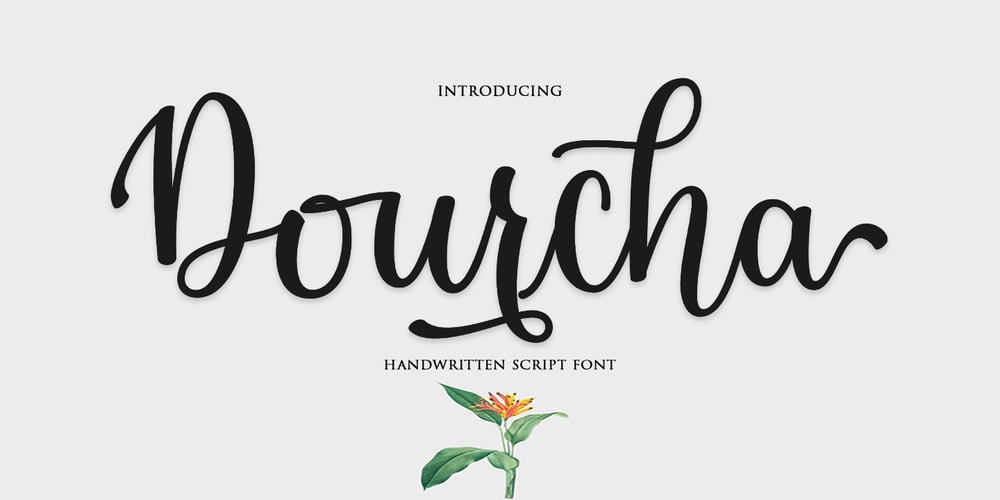
Dourcha Font Family was designed by Muammar Kadafi and published by Attract Studio. Dourcha contains 1 styles and family package options. Dourcha Script is a new modern script font with an irregular base line. Handwriting style, trendy and feminine. Dourcha Script looks good on wedding invitations, thank you cards, quotes, greeting cards, logos, business cards and more. Perfect for use in ink or watercolors. Includes beginning and end letters, alternates, ligatures and multiple language support.